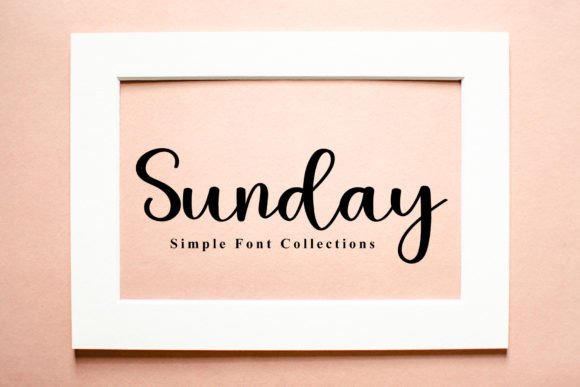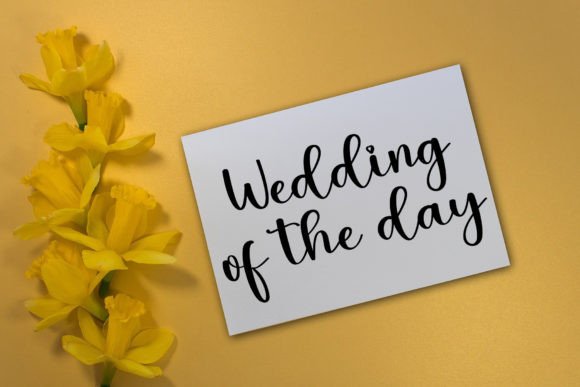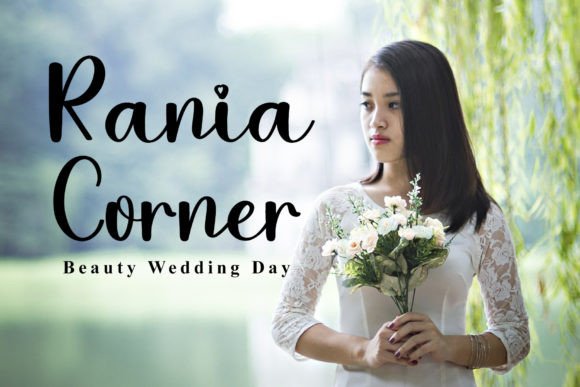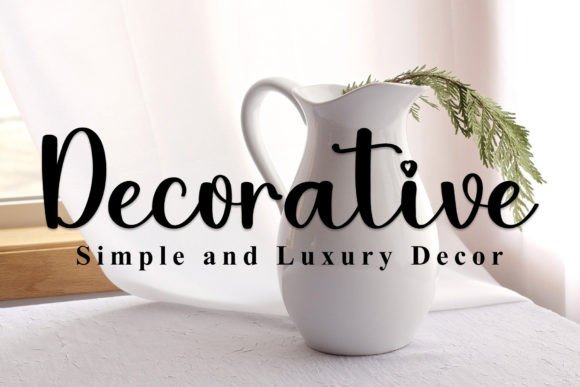
Introduction to Juliete Font
Have you ever stumbled upon a design that stops you in your tracks, making you wonder how the creator managed to convey such elegance and sophistication? For designers, those ‘aha’ moments are what drive us to push the boundaries of creativity. For me, that moment came when I discovered the Juliete Font – a beautifully crafted handwritten font that adds an air of refinement to any project.
As a valuable design resource, the Juliete Font is a game-changer for creative projects. Its high-quality, elegant touch is perfect for designers seeking to add a personal touch to their work. Whether you’re working on a logo, brochure, or social media graphics, this font’s timeless style is sure to elevate your designs. And the best part? It’s available for free download, making it a must-have in every designer’s toolkit.
Key Features of Juliete Font
- Unique, elegant design with a transparent background, perfect for modern designs
- Perfect for use in various design projects, from logos and branding to digital products and marketing materials
Honest Review: Juliete Font
I recently came across the Juliete Font, and I was impressed by its potential as a design resource for creative projects. The font’s high quality is evident in its clean and elegant design, making it suitable for various applications, from typography to branding.
The Juliete Font offers a transparent background, allowing designers to easily integrate it into their designs without any distracting visual noise. This feature is particularly useful for graphic designers who require a clean and minimalist aesthetic.
- ✨ High-quality design that exudes elegance and sophistication
- ✨ Suitable for various creative projects, including typography and branding
- ✨ Transparent background for seamless design integration
- ⚠️ Limited character set, which may not be ideal for extensive text-based projects
Overall, I’m impressed by the Juliete Font’s potential as a design resource. While it may have some limitations, its high-quality design and transparent background make it a valuable addition to any designer’s toolkit. And the best part? It’s available for free download, making it an excellent option for designers on a budget.
Tips for Getting the Most Out of Juliete Font
Use the Juliete Font in combination with a transparent background to create a creative and modern design effect. Experiment with different font sizes and colors to add visual interest to your project.
The Juliete Font is a versatile design resource that can be used in a variety of creative projects, including logos, brochures, and social media graphics. Its high-quality design makes it an ideal choice for any project that requires a professional and modern look.